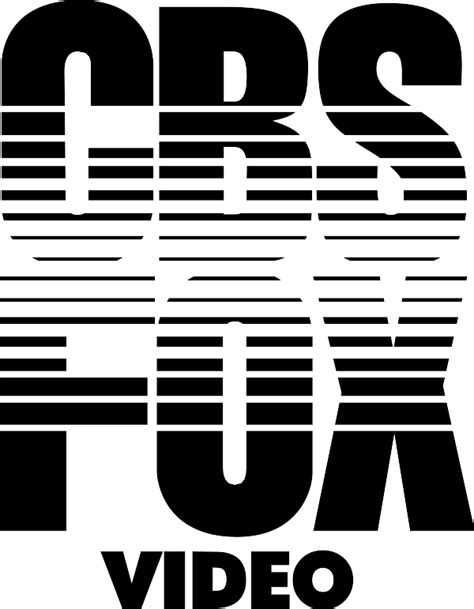
Unmasking The Iconic Fonts Of CBS And Fox Logos
Hey there, typography enthusiasts and TV buffs! Ever found yourself watching your favorite shows on CBS or Fox and suddenly thought, “Man, that logo looks good! What font do they use?” Well, you’re in luck, because today we’re diving deep into the fascinating world of CBS Fox logo font —or, more accurately, the distinctive typography that makes these broadcasting giants instantly recognizable. We’re talking about the secret sauce behind some of the most enduring visual brands in television history. It’s not just about picking a cool-looking typeface, guys; it’s about crafting an identity, a feeling, and a promise to the viewer. These networks have spent decades, and countless resources, perfecting their visual representation, and the fonts they use are at the very heart of that effort. From the moment the iconic CBS Eye pops up on your screen to the bold, dynamic lettering of the Fox brand, every visual element, especially the typography, is meticulously chosen to evoke a specific emotional response and solidify their unique presence in the media landscape. Understanding the broadcast typography behind these behemoths offers us a unique glimpse into the sophisticated art of branding and visual communication. It’s a journey into how simple letters, when expertly designed and strategically deployed, can become powerful symbols that resonate with millions of people worldwide, shaping their perceptions and enhancing their viewing experience. So, buckle up, because we’re about to explore the history, the design philosophy, and the sheer impact of the fonts that define these titans of television. We’ll uncover how these specific typefaces contribute to their brand identity , their enduring legacy, and why they matter so much in the crowded world of media. You might be surprised at the level of detail and thought that goes into something as seemingly simple as a network logo.
The Iconic CBS Eye: A Typographical Deep Dive
When we talk about the CBS Fox logo font focus, let’s first zero in on one of the most recognized logos on the planet: the CBS Eye. While the eye itself is a powerful graphic symbol, the accompanying text, the letters CBS , are equally important in defining the network’s identity. For decades, the CBS logo has embodied a sense of authority, tradition, and clarity. The text portion of the CBS logo font is often described as being a robust, clear, and unpretentious sans-serif. While many networks rely on heavily modified or custom fonts, the spirit of the CBS lettering often harks back to classic geometric sans-serifs, evoking a timeless and authoritative feel. Think along the lines of a strong, yet approachable, typeface that communicates reliability. It’s a design choice that speaks volumes without shouting, a subtle nod to the network’s long-standing reputation for quality news and entertainment. The clean lines and strong presence of the CBS typography complement the iconic eye perfectly, creating a unified and memorable brand image. This isn’t just a casual font choice; it’s a strategic decision to project stability and trust to millions of viewers. The simplicity and timelessness of this font ensure that it doesn’t fall victim to fleeting design trends, allowing the network’s visual identity to remain consistent and strong through generations. It’s designed to be legible on any screen, from small television sets of yesteryear to today’s high-definition behemoths, emphasizing its universal appeal and functional elegance. This dedication to clarity and enduring design is a cornerstone of the CBS brand, making their broadcast typography a true testament to the power of thoughtful design in shaping public perception. The font isn’t just a label; it’s an extension of the network’s commitment to delivering reliable and engaging content, serving as a silent, yet powerful, ambassador for their brand ethos. It’s a masterclass in how type can convey character and credibility, firmly establishing CBS as a pillar of American broadcasting with its understated yet immensely impactful lettering.
Decoding the Fox Logo: Power and Precision in Typography
Now, shifting our focus to the other half of our CBS Fox logo font investigation, let’s turn our attention to the distinct and undeniably impactful Fox logo. Unlike the more traditional and understated approach of CBS, the Fox logo font embodies a dynamic, aggressive, and modern aesthetic. The letters FOX are typically rendered in an extremely bold, condensed, and often slightly slanted or stylized sans-serif typeface. This isn’t just any font, guys; this is a declaration! The sharp angles, strong serifs (if present, often as stylized extensions rather than traditional ones), and the sheer weight of the letters communicate power, excitement, and a forward-thinking attitude. It’s designed to grab your attention and hold it, reflecting the network’s often high-octane programming, from thrilling dramas to competitive sports broadcasts. This Fox typography screams energy and innovation, perfectly aligning with its reputation for pushing boundaries and delivering action-packed content. It’s a bold choice that stands out in a crowded media landscape, reflecting Fox’s willingness to be distinct and impactful. The font’s robust construction and visual intensity are key elements in how it communicates a sense of urgency and entertainment, distinguishing the Fox brand across its various ventures, from the main network to Fox News and Fox Sports. Each iteration might have slight variations, but the core essence of a strong, almost aggressive, and undeniably modern typeface remains consistent, solidifying its brand identity as a purveyor of impactful and often provocative content. It’s a masterclass in using typography to project a specific persona – one that is unafraid to be bold, loud, and memorable. The strategic use of this powerful and striking font ensures that the Fox brand consistently conveys its message of dynamic entertainment and compelling news, resonating deeply with an audience that expects nothing less than high-impact experiences. The careful crafting of these letters, often custom-designed to perfection, ensures that the visual impact is immediate and lasting, making the Fox logo an unmistakable beacon of modern broadcasting.
Why Do These Fonts Matter? The Psychology of Branding
Alright, so we’ve looked at the specific characteristics of the CBS Fox logo font aesthetics, but let’s zoom out a bit and ask why any of this truly matters. Why do mega-corporations like CBS and Fox invest so much time and money into their typography? The answer, my friends, lies in the profound psychology of branding . Fonts are not just functional elements for reading text; they are powerful conveyors of emotion, personality, and trust. Every curve, every line, every weight of a typeface communicates something subconsciously to the viewer. When you see the solid, classic sans-serif associated with CBS, it evokes feelings of reliability, tradition, and established authority. It subtly tells you, “You can trust us; we’ve been here, we know what we’re doing.” This font psychology is crucial for a news organization and a general entertainment network that prides itself on stability and quality. On the flip side, the bold, sharp, and modern letters of the Fox logo project energy, dynamism, and a cutting-edge approach. It screams, “Get ready for excitement; we’re bold, we’re new, and we’re here to entertain!” This visual language is essential for a network that often pushes boundaries and targets a more contemporary, action-oriented audience. Think about it: if CBS used a quirky, hand-drawn font, or if Fox opted for a delicate script, it would completely clash with their perceived brand identity and messaging. The dissonance would be jarring, confusing viewers and undermining their hard-earned credibility. These choices in broadcast typography aren’t arbitrary; they are meticulously researched and tested to ensure they align perfectly with the network’s core values, target audience, and programming style. They become an integral part of the network’s visual shorthand, instantly recognizable and deeply ingrained in our collective cultural consciousness. This careful consideration of visual branding through typography is what allows these networks to build strong, lasting relationships with their viewers, fostering loyalty and reinforcing their market position. It’s about creating an immediate, emotional connection that transcends mere information delivery, making the viewing experience richer and more meaningful. Ultimately, the fonts they choose are fundamental to how they are perceived, how they differentiate themselves, and how they continue to captivate audiences in an ever-evolving media landscape. It’s a testament to the fact that in the world of branding, every detail, especially typography, plays a critical role in shaping perception and building an empire of influence. So, next time you see one of these logos, remember that there’s a whole world of psychological cunning and strategic design baked into those seemingly simple letters.
Behind the Scenes: Custom Typography and Design
Ever wondered why you can’t just go to your favorite font website and download the exact CBS Fox logo font ? The truth, folks, is that many of these iconic network logos, especially for industry titans like CBS and Fox, don’t use off-the-shelf typefaces. Instead, they often employ custom lettering or heavily modified existing fonts, tailor-made by expert typographers and graphic designers. This isn’t just about being unique; it’s about achieving a level of precision and distinctiveness that a generic font simply can’t provide. When a network commissions custom typography, they’re investing in exclusivity. This ensures that their logo is one-of-a-kind , instantly recognizable, and legally protected. Imagine the design brief: “We need a font that conveys trustworthiness and heritage for CBS,” or “Create a typeface that screams excitement and modernity for Fox.” Designers then embark on a meticulous process, sketching, refining, and testing every single character to ensure it aligns perfectly with the network’s brand identity . This can involve adjusting letter spacing (kerning), tweaking the thickness of strokes, perfecting curves, and even designing bespoke ligatures or alternate characters that enhance readability and visual appeal. The goal is to create a typeface that not only looks great but also performs flawlessly across all media platforms – from a tiny on-screen bug to a massive billboard, and everything in between. The custom lettering also allows for optimal scalability and consistency, ensuring the brand’s message is always clear and impactful, regardless of the size or context. This bespoke approach to broadcast typography is a critical component of their larger visual branding strategy. It’s an expensive and time-consuming endeavor, but for networks operating on such a grand scale, it’s an indispensable investment. It’s about crafting a visual language that is wholly their own, a unique typographic signature that resonates deeply with their audience and stands the test of time. This level of dedication to design excellence highlights just how seriously these networks take their visual presentation, recognizing that even the smallest details, like the shape of a letter, contribute significantly to their overall brand perception and market dominance. It’s a testament to the power of bespoke design in building an enduring legacy and ensuring that their visual message remains uncompromised and utterly distinctive.
Conclusion: The Enduring Power of Broadcast Typography
So there you have it, guys! From the steadfast reliability embodied by the CBS logo font to the dynamic and bold statements made by the Fox logo font , it’s clear that typography is far more than just text on a screen. It’s a foundational pillar of brand identity for these broadcasting titans. The journey through the evolution and design philosophy behind the CBS Fox logo font has shown us that every stroke, every curve, and every carefully chosen letter contributes to a network’s unique personality and its connection with millions of viewers worldwide. These aren’t just arbitrary design choices; they are strategic decisions steeped in font psychology and meticulous custom lettering , designed to evoke specific emotions and build enduring trust. The next time you glance at these iconic TV logos , take a moment to appreciate the incredible artistry and strategic thinking that went into crafting their broadcast typography . It’s a powerful reminder that in the competitive world of media, strong visual branding is absolutely essential. From the subtle cues that build trust to the bold statements that demand attention, the fonts used by CBS and Fox are masterclasses in how design can shape perception and cement a legacy. They don’t just tell you what network you’re watching; they tell you who that network is, what it stands for, and what experience you can expect. It’s truly fascinating, isn’t it? The subtle yet profound impact of well-designed type on our daily lives. Keep an eye out for more of these hidden design gems; you’ll start seeing them everywhere!